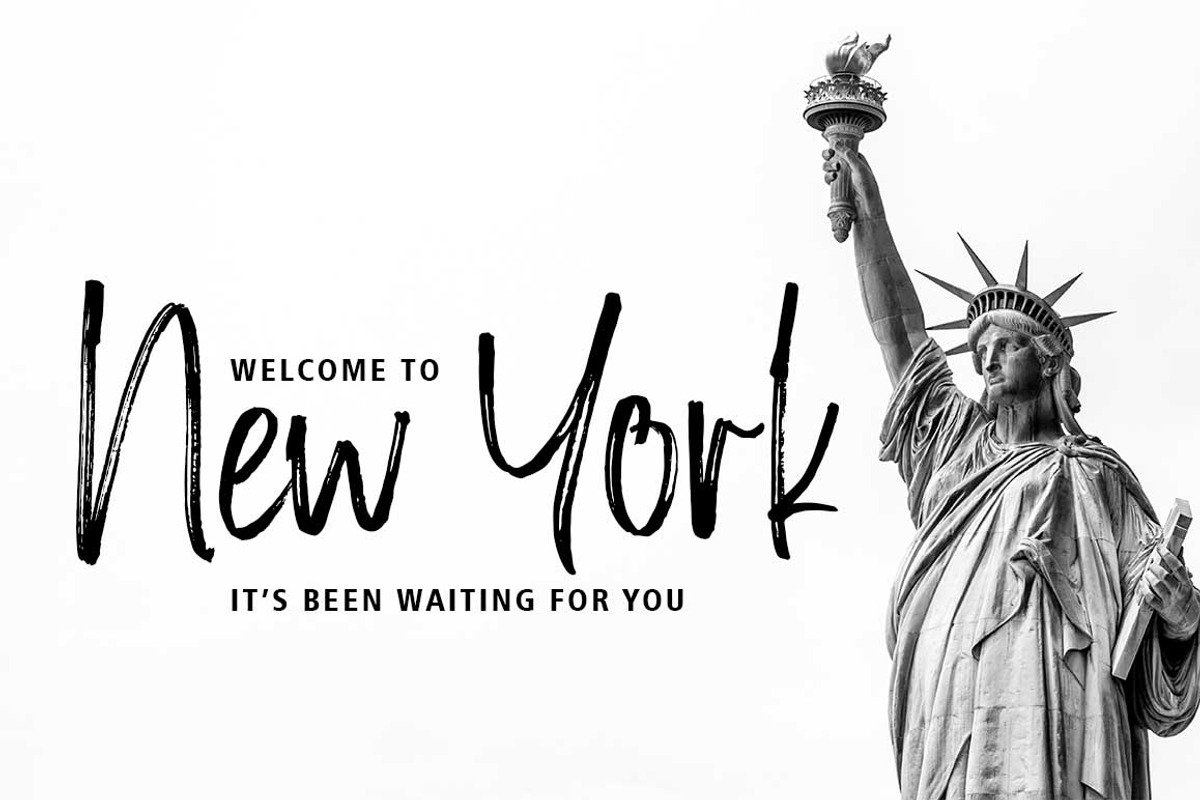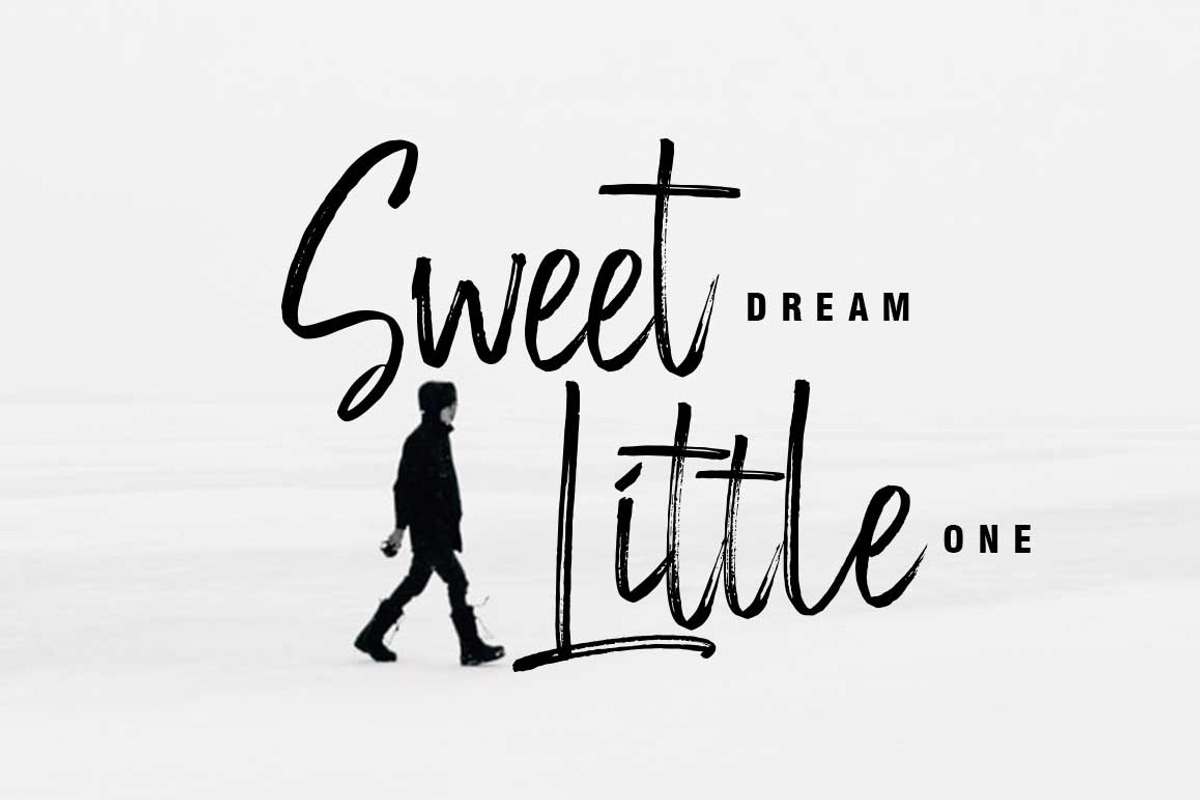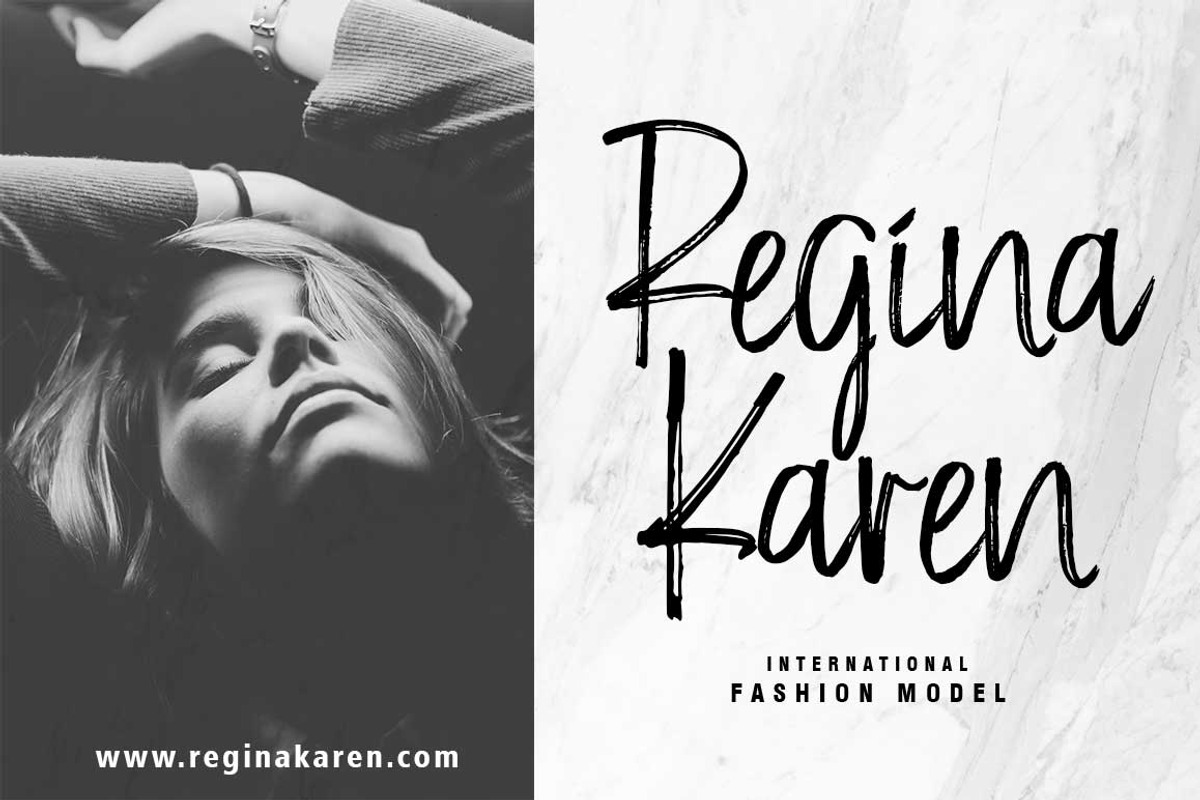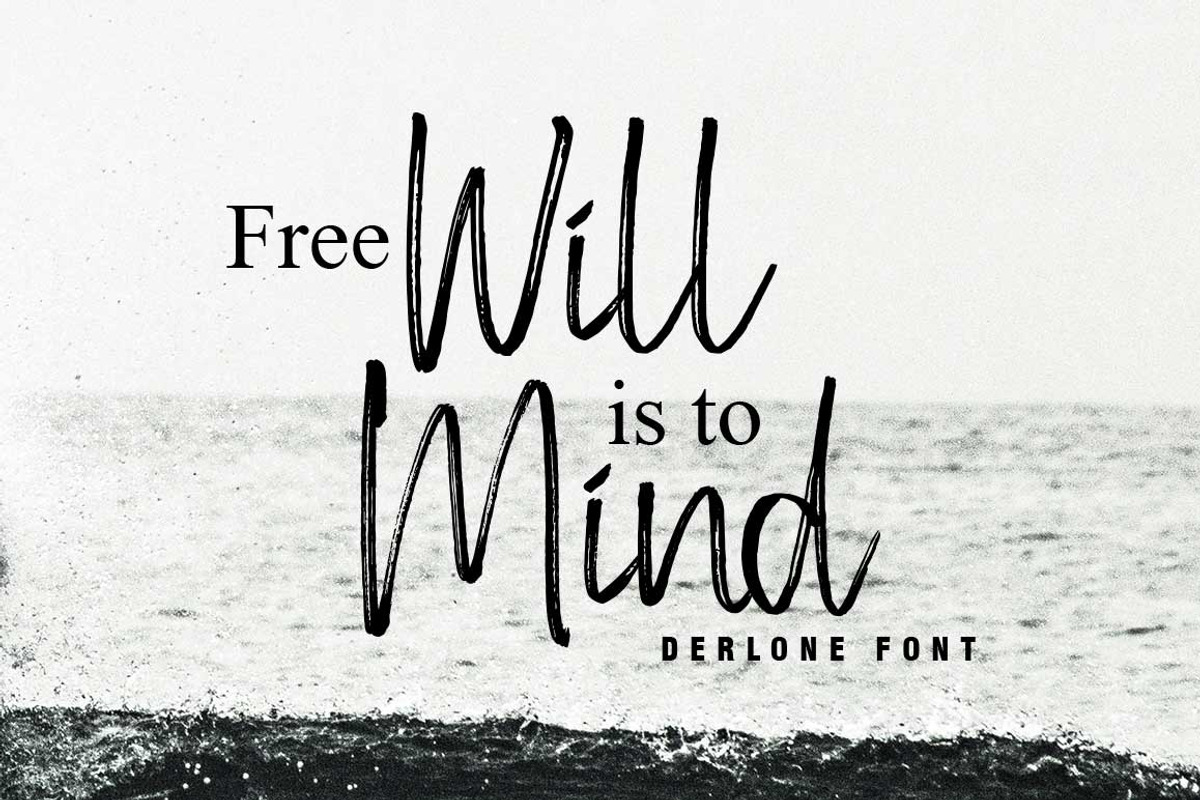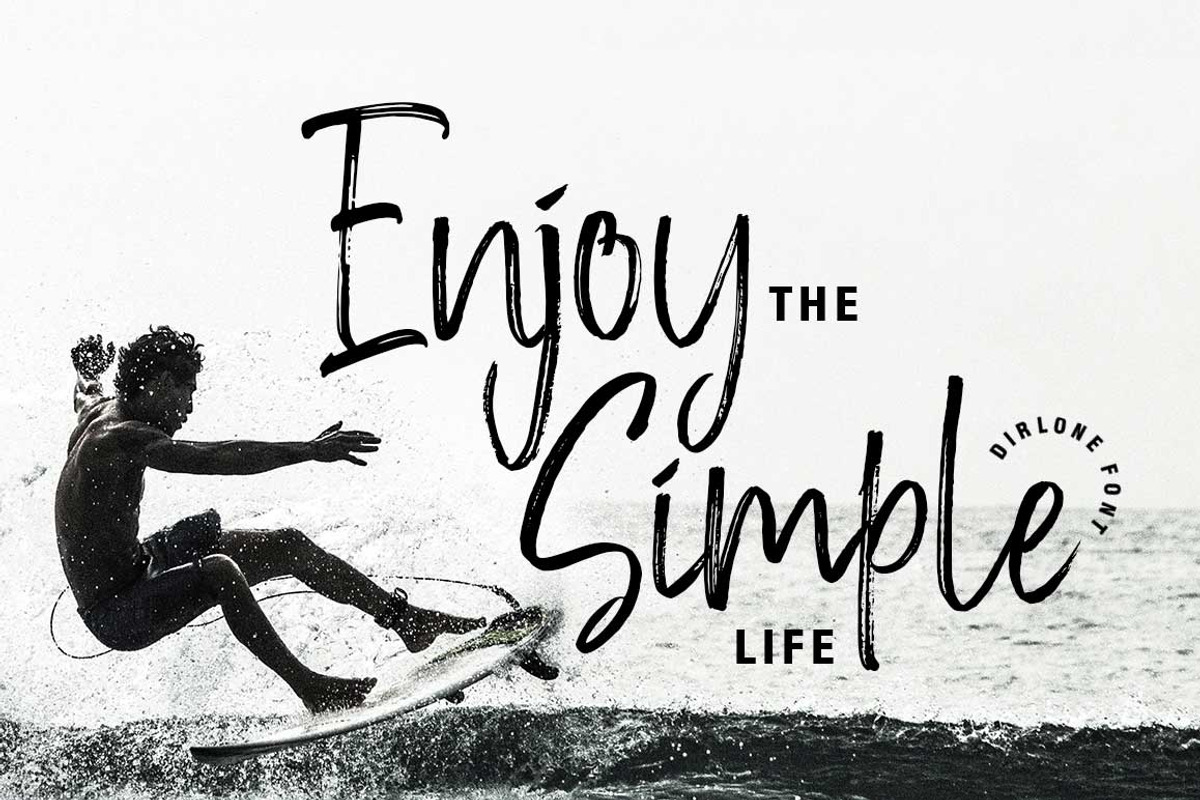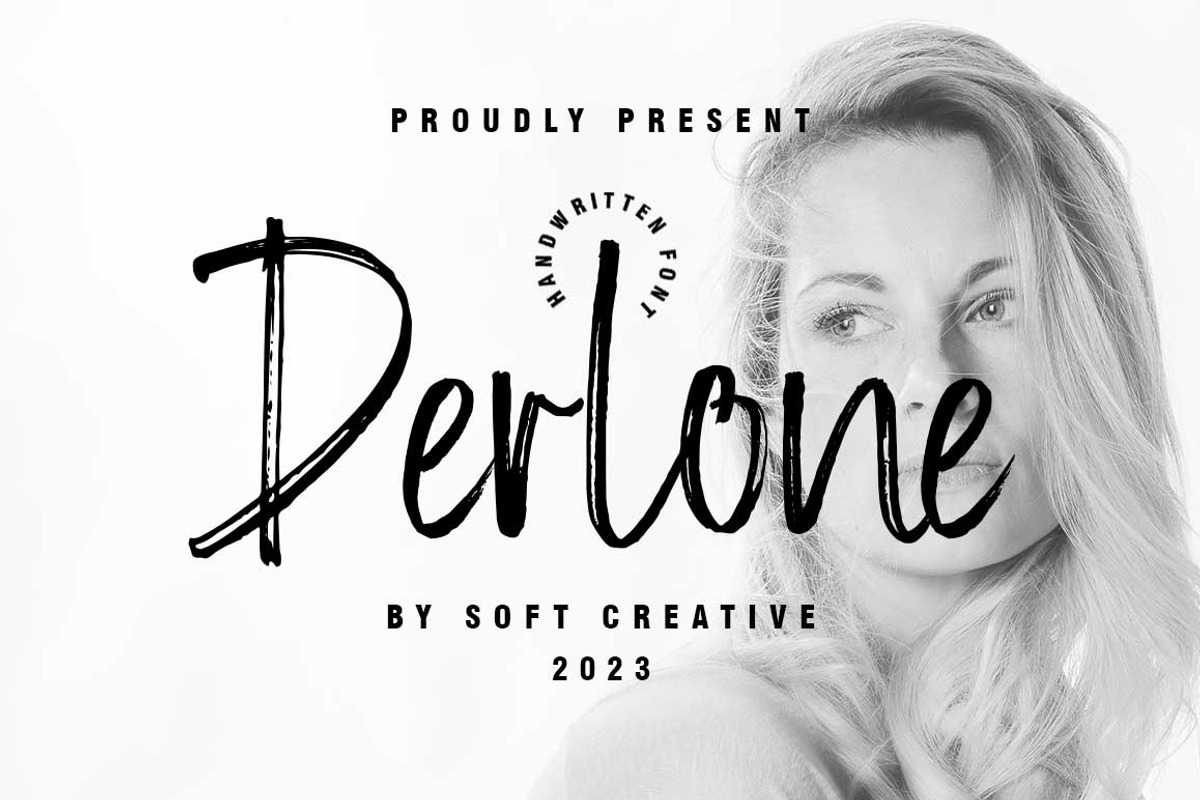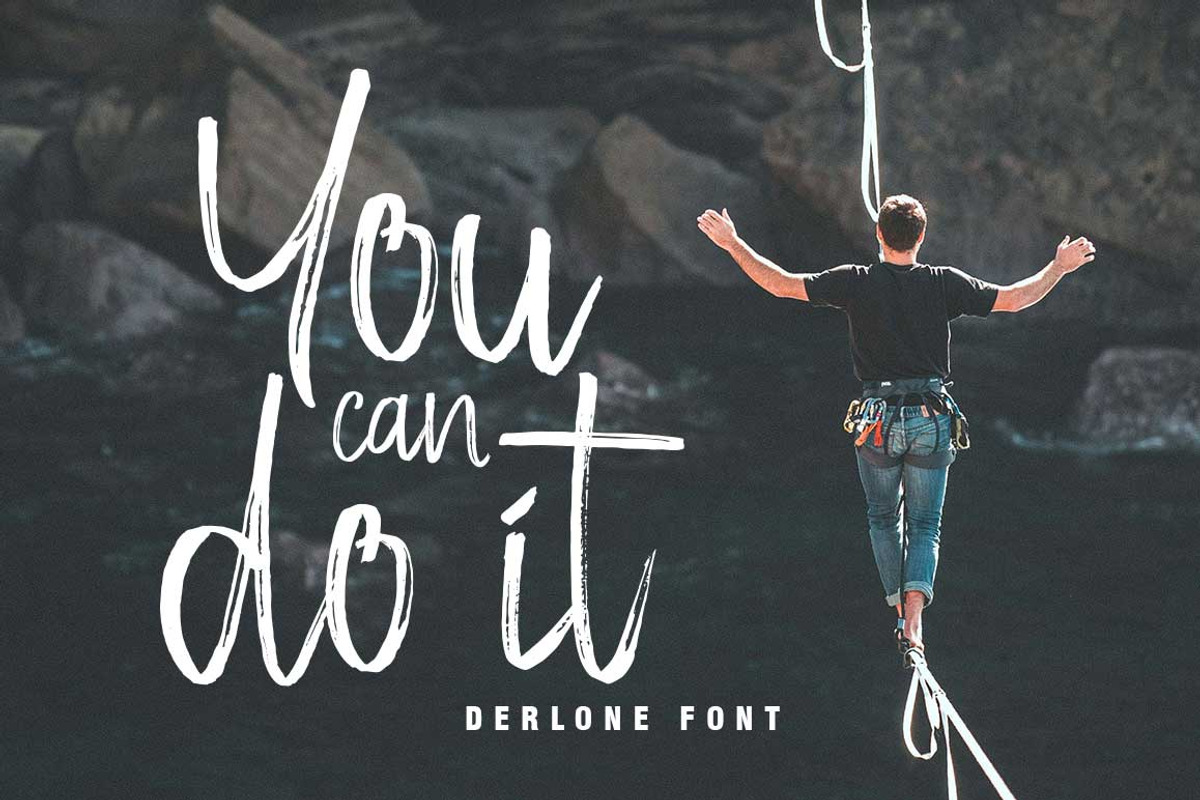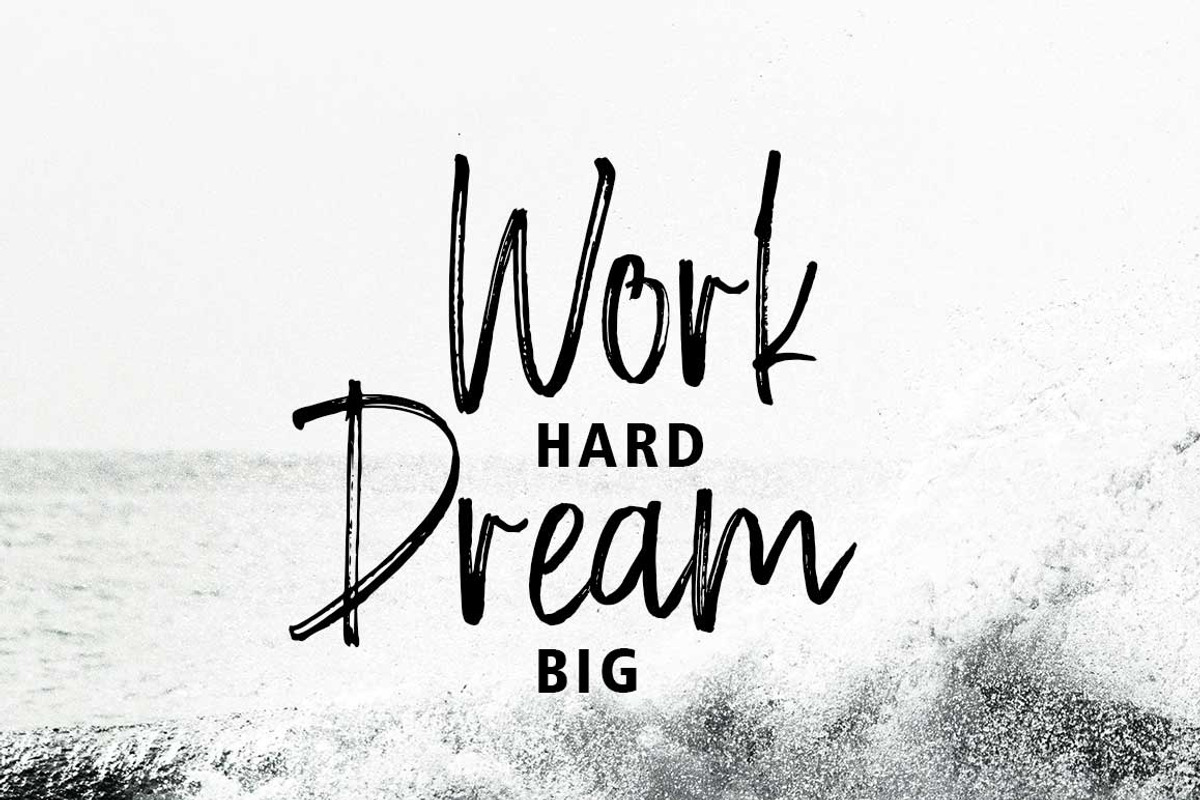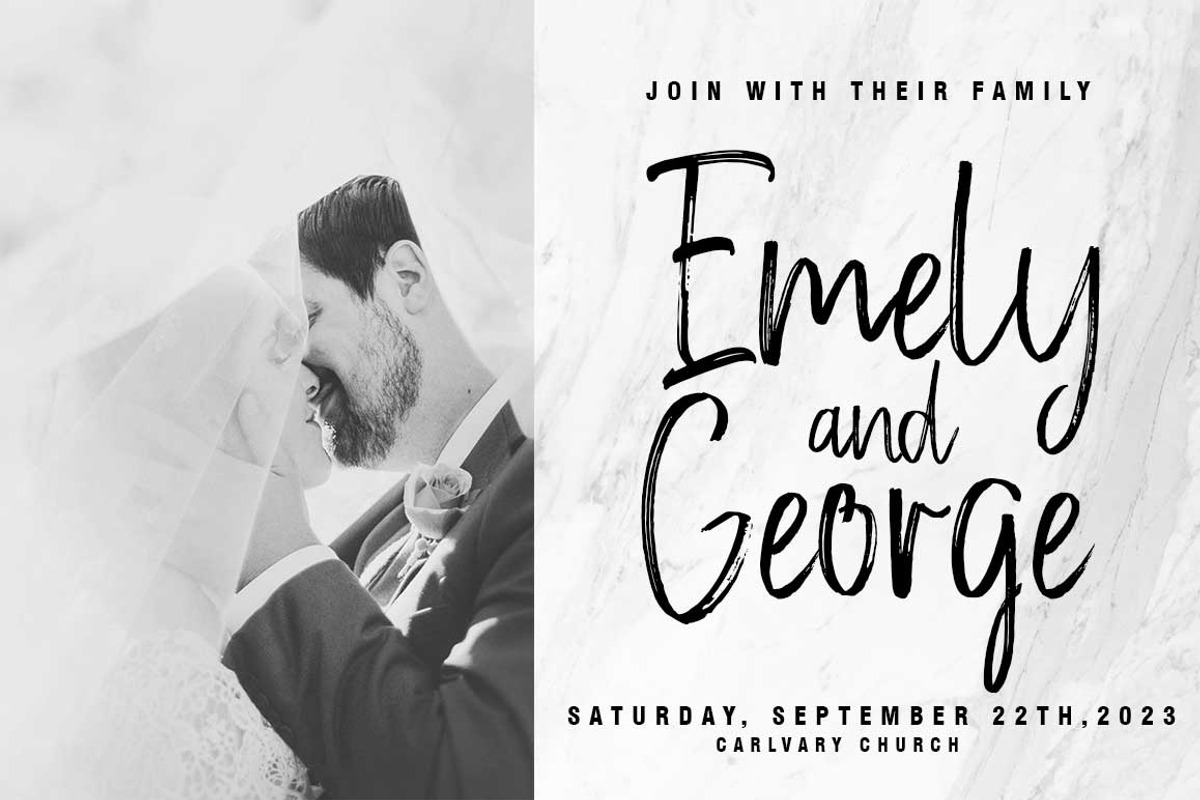
Derlon
Derlone is a new modern brush font with irregular basic lines. contemporary design approach, natural handmade, suitable for use in title designs such as clothing, invitations, book titles, stationery designs, quotes, branding, logos, greeting cards, T-shirts, packaging designs, posters and much more. Complete with upper and lower case letters, as well as multi-language support, numbers, punctuation, and several ligatures as complements. Thank you so much for looking and let me know if you have any questions.